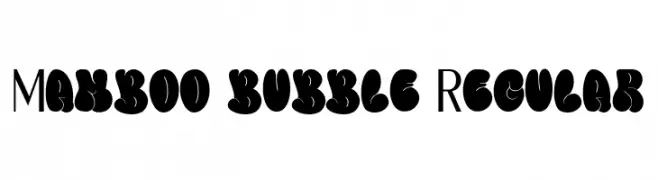
A bold, playful font with a hand-drawn, whimsical style.
A bold, distressed font with a rugged, grunge texture.
A bold, distressed font with a rugged, industrial style.
A bold, decorative font with a rugged, distressed texture.
A bold, textured font with a distressed, vintage look and playful, curly style.
A bold, distressed font with a vintage, rugged appearance.
A bold, futuristic font with a glitch effect, ideal for modern and tech-themed designs.
A bold, playful font with dynamic strokes and a modern, artistic flair.
A playful, ink-splatter-inspired font with a dynamic, dotted design.
A bold, textured decorative font with a hand-carved appearance.
A playful, casual handwritten font with smooth, rounded strokes.
A bold, playful font with thick, rounded characters and a retro vibe.
A playful, comic-style font with rounded, bold characters and a hand-drawn feel.
A bold, impactful font with thick, uniform strokes and slightly condensed characters.
A bold, playful hand-drawn font with a lively and energetic style.
A playful, hand-drawn font with bold, textured characters.
A bold, playful font with rounded, bubbly characters perfect for fun designs.
A playful, handwritten font with smooth, rounded edges and a friendly appearance.
A playful, handwritten font with rounded, bold characters.
A playful, hand-drawn font with a bold, tiki-inspired style.
A bold, playful font with rounded, thick strokes and a bubbly appearance.
A bold, playful handwritten font with dynamic, irregular strokes.
A bold, playful font with rounded, hand-drawn style characters.
A bold, playful font with a hand-drawn, textured style.
A bold, playful font with rounded, bubbly characters and a whimsical style.
A bold, playful font with a hand-drawn, whimsical style.
A bold, textured font with a hand-drawn, energetic style.
A playful, hand-drawn font with bold, rounded characters and a whimsical style.
A playful, bold font with rounded, smooth characters and a whimsical style.
A bold, rounded typeface with a playful and whimsical style.
A bold, playful font with rounded, bubbly characters ideal for fun designs.
A bold, playful font with a hand-drawn, energetic style.
A playful, bold font with rounded characters and whimsical heart details.
A playful, hand-drawn font with bold, rounded characters and a whimsical style.